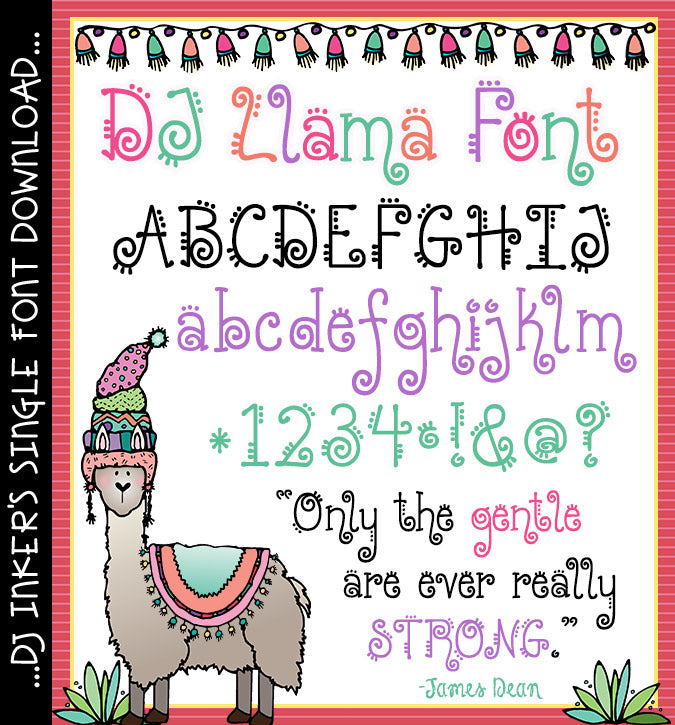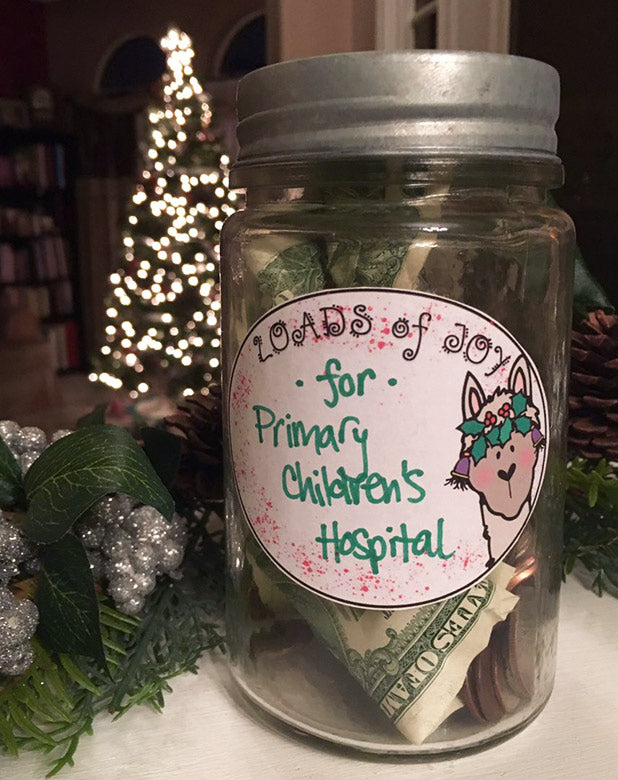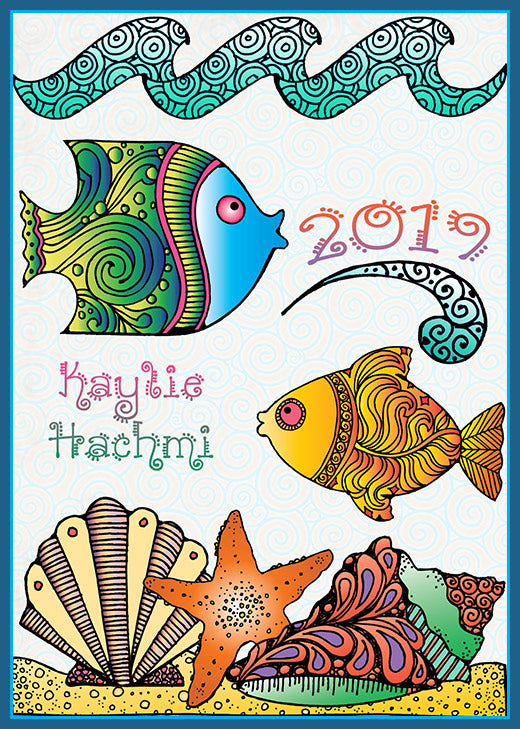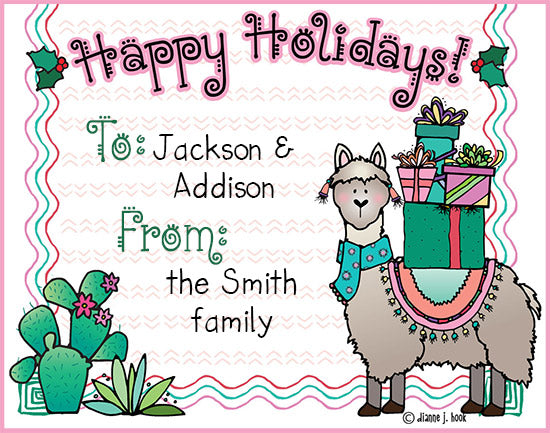
DJ Llama Font Download
We've packed our whimsical DJ Llama font with fun and personality. This
unique lettering will add loads of smiles to any headline. Perfect for
holidays, celebrations and playful projects any time of year.